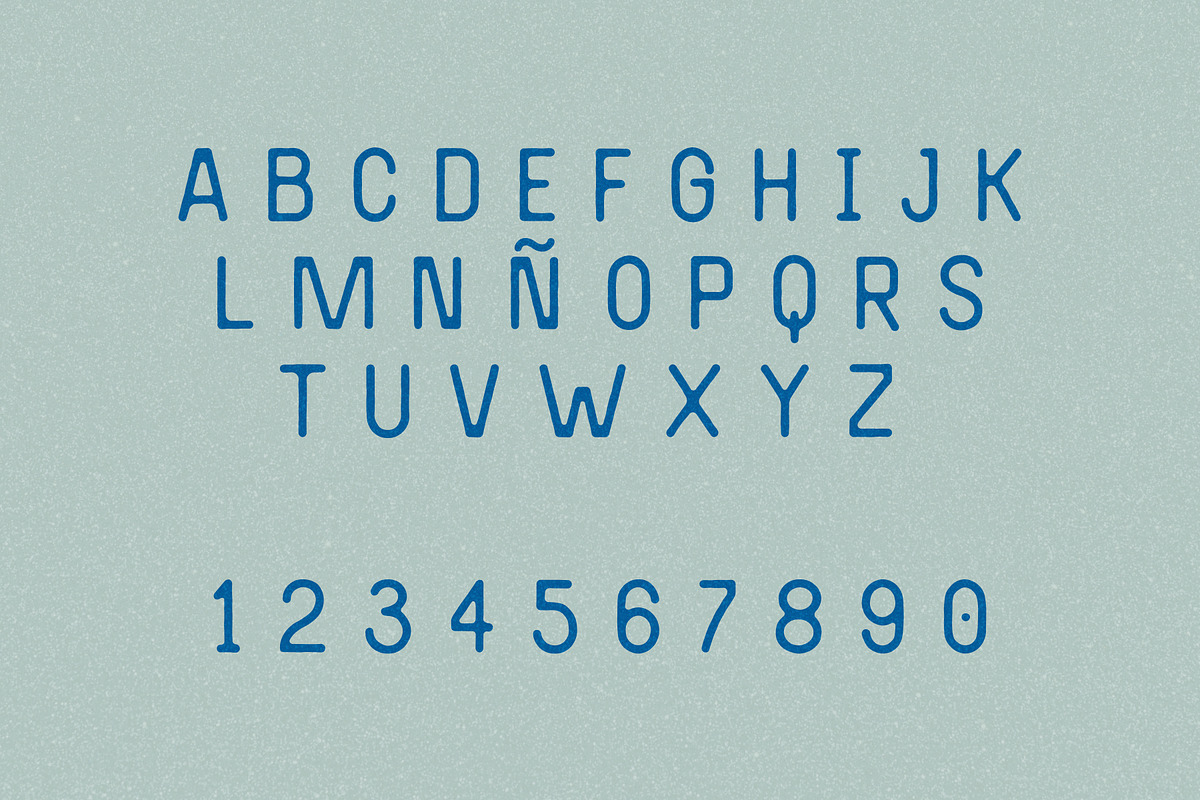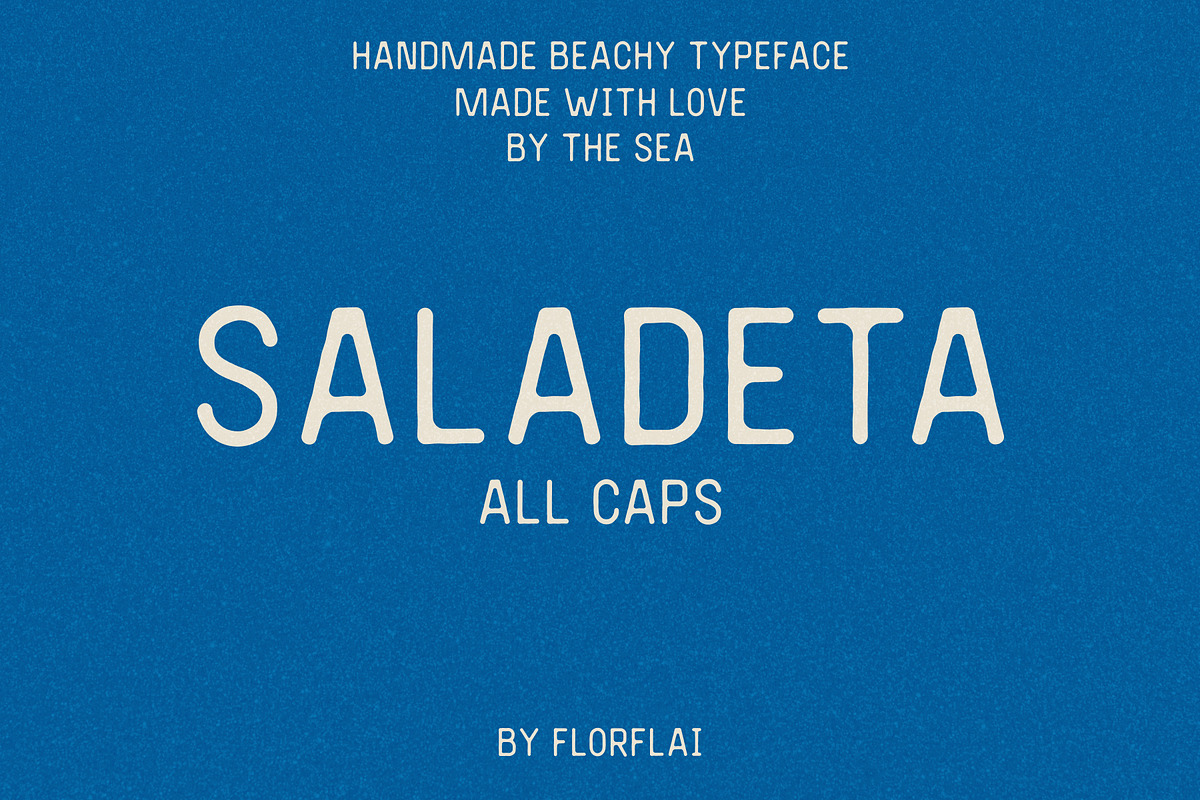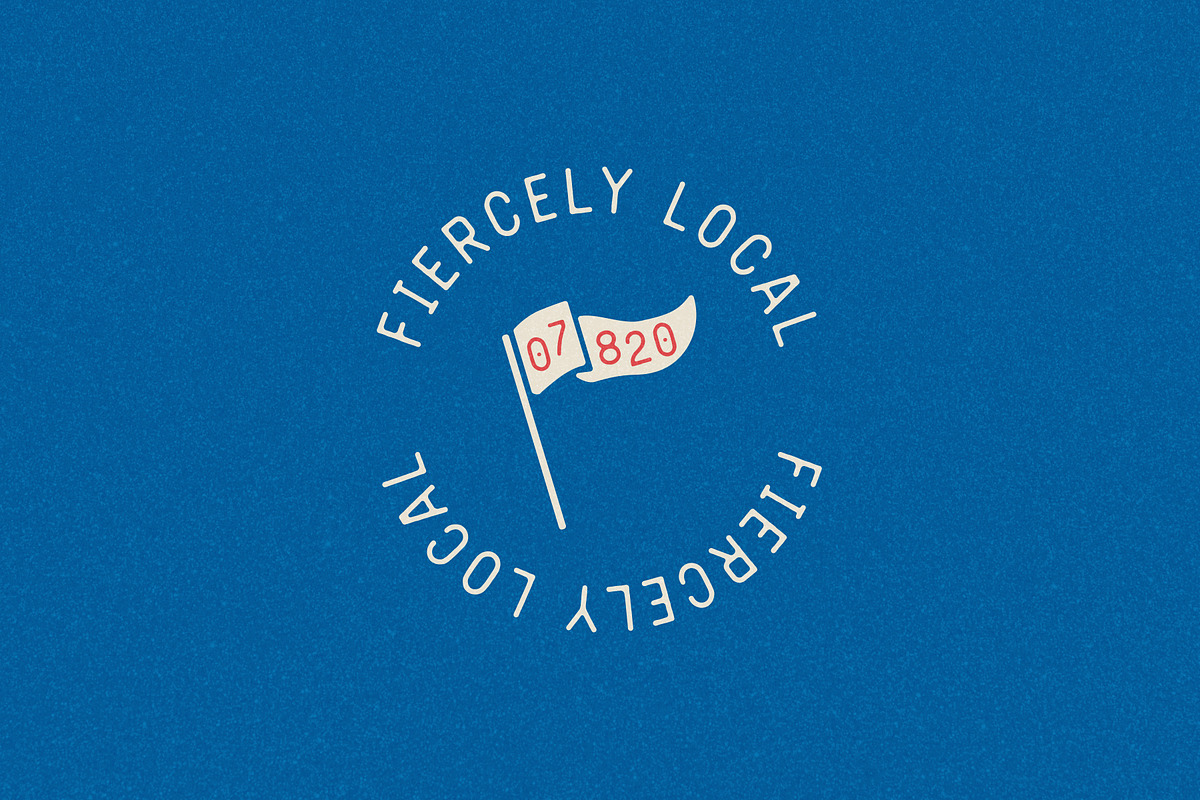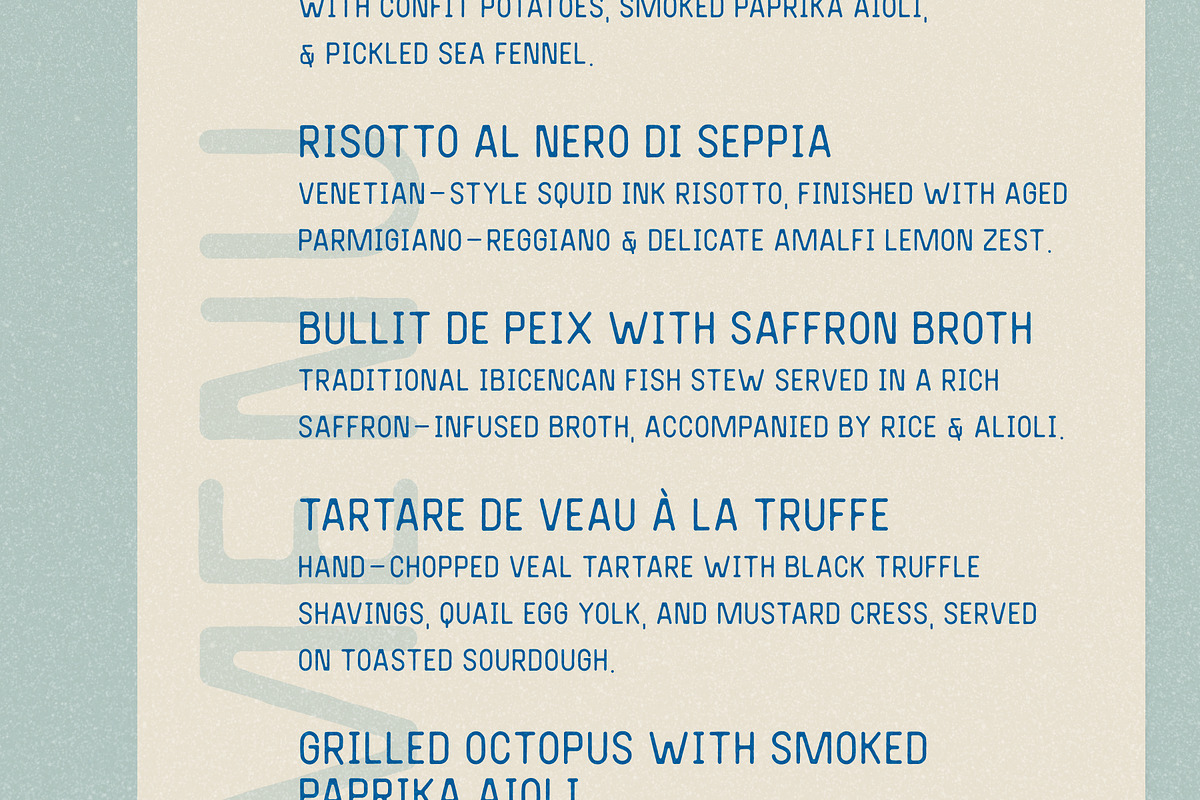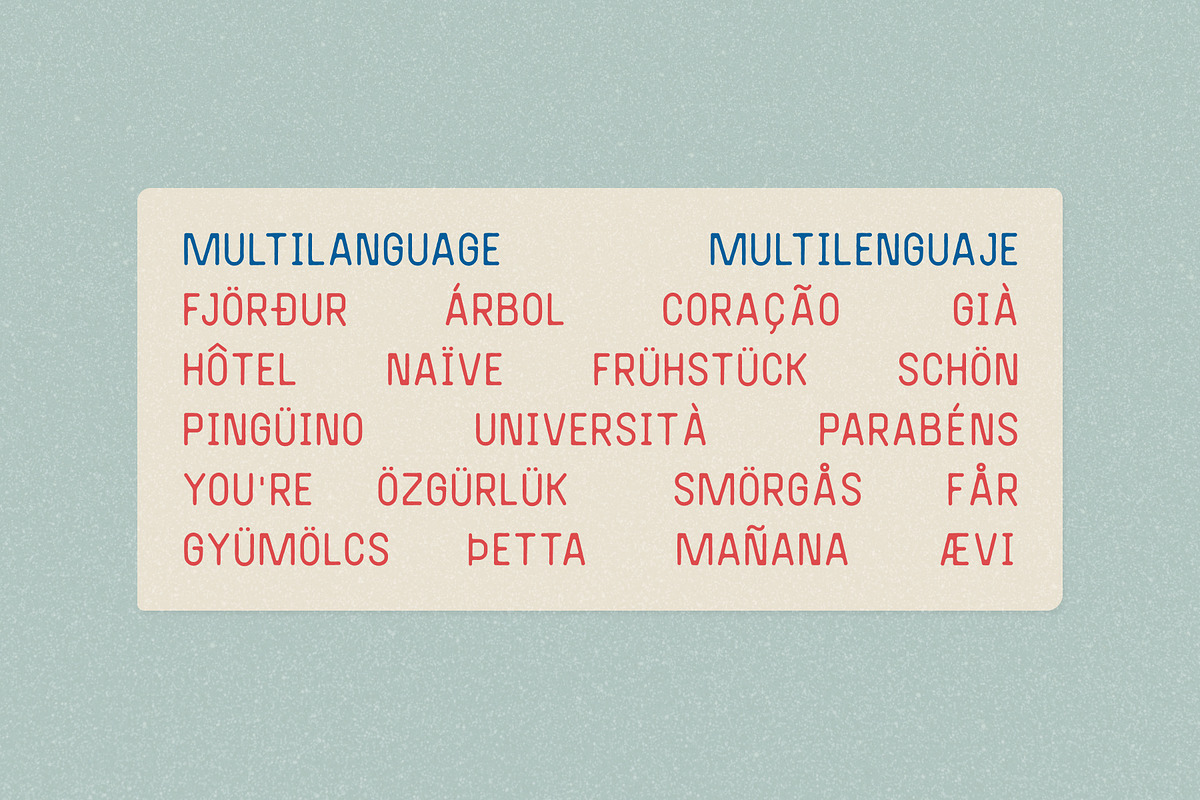
Saladeta
Saladeta is a hand-crafted all caps font, named after a small beach in Ibiza where the sun hits just right in the winter mornings and everything feels slow. It takes inspiration from old signs, hand-painted posters, and that imperfect charm only handmade lettering can bring.
Designed with versatility in mind, Saladeta supports multiple languages and works beautifully in headlines, packaging, or even that tiny menu description that needs personality without shouting. It’s got just enough wobble to feel human, but still clean enough to look pro.